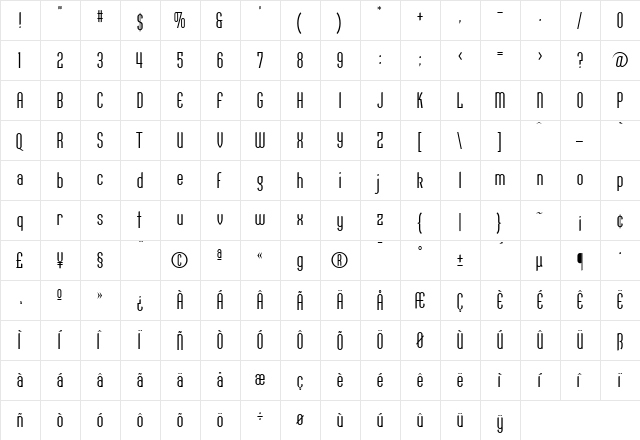
Conques Book
Design Context for Conques Typeface
Conques offers clean, dependable letterforms without strong stylistic allegiance, making it a practical choice for designers who need flexibility.